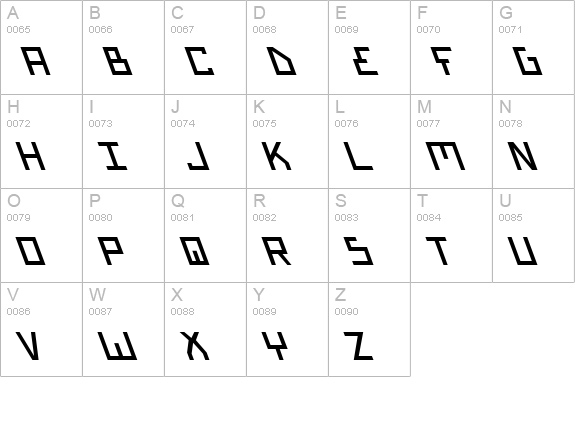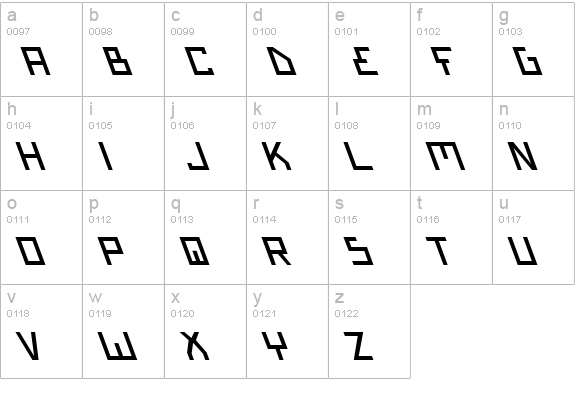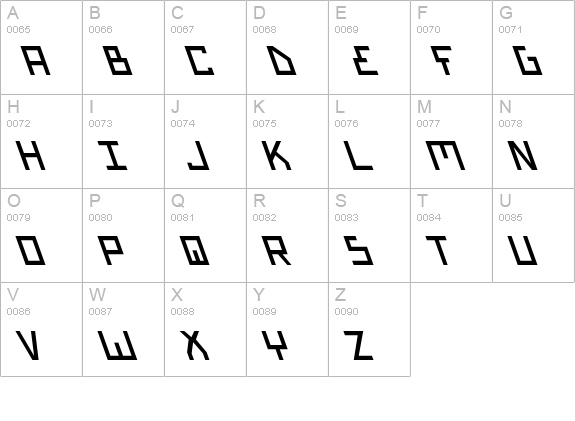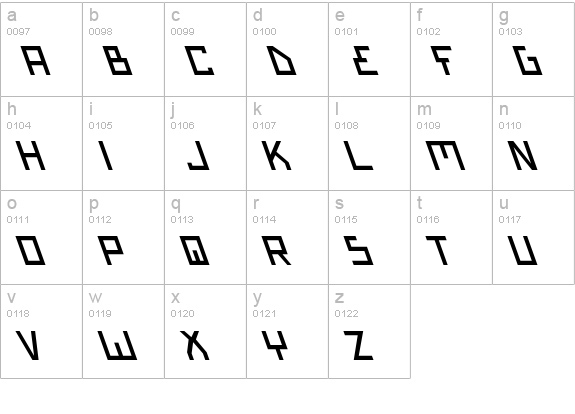
Introducing the innovative and futuristic Bionic Type Slant font! This cutting-edge typeface combines sleek, modern design with a dynamic slanted style, making it perfect for projects that require a bold and futuristic look. The Bionic Type Slant font features clean lines, sharp angles, and a distinctively bionic aesthetic that sets it apart from traditional fonts. Whether you're working on a sci-fi poster, a tech-themed website, or a high-tech branding project, the Bionic Type Slant font will give your designs a unique and eye-catching edge. Its versatility and striking appearance make it a great choice for a wide range of design applications. Best of all, the Bionic Type Slant font is available for free download at FontsMarket.com. So go ahead and add this innovative font to your collection today and take your designs to the next level!